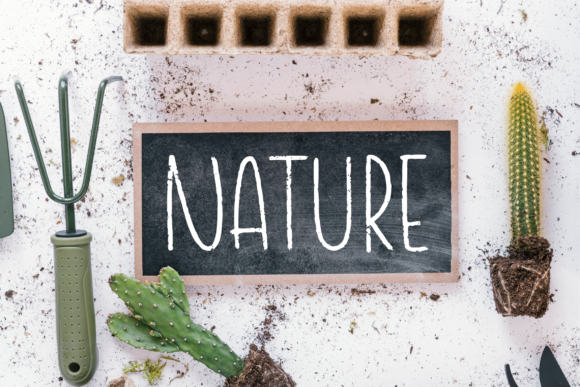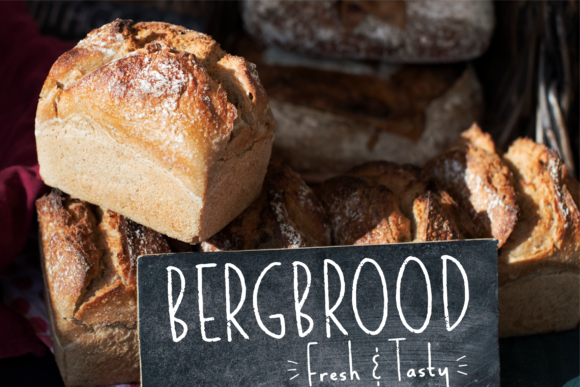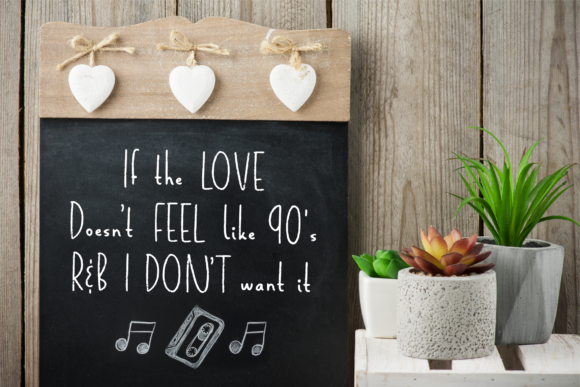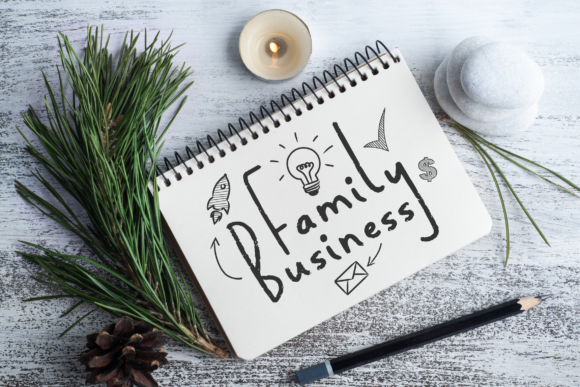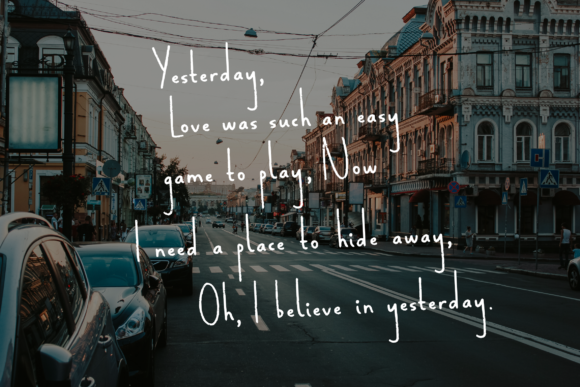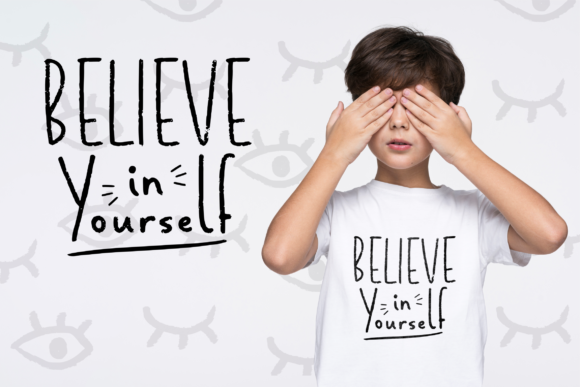
Introducing Gradechalky Font: The Cute and Delicate Script Font You Need
Are you a designer or crafter looking for a font that can add a touch of elegance and charm to your creations? Look no further than Gradechalky Font, a beautiful and delicate script font that’s perfect for a wide range of projects. In this article, we’ll take a closer look at Gradechalky Font, its features, and how it can elevate your designs.
What is Gradechalky Font?
Gradechalky Font is a cute and delicate script font that’s designed to add a touch of whimsy and charm to your creations. With its elegant and flowing lines, this font is perfect for designers and crafters who want to create beautiful and eye-catching designs. Whether you’re working on a logo, branding project, or social media graphics, Gradechalky Font is an excellent choice.
Key Features of Gradechalky Font
So, what makes Gradechalky Font so special? Here are some of its key features:
- Cute and delicate design: Gradechalky Font has a unique and charming design that’s perfect for creating beautiful and eye-catching designs.
- Script font style: This font has a elegant script font style that’s perfect for adding a touch of elegance and sophistication to your designs.
- Versatile: Gradechalky Font can be used for a wide range of projects, from logos and branding to social media graphics and more.
- Easily readable: Despite its delicate design, Gradechalky Font is easily readable, making it perfect for body text and headlines.
How to Use Gradechalky Font
Gradechalky Font is incredibly easy to use, and its versatility makes it perfect for a wide range of projects. Here are some ideas for using Gradechalky Font:
- Logos and branding: Use Gradechalky Font to create a beautiful and memorable logo for your brand.
- Social media graphics: Add a touch of elegance and charm to your social media graphics with Gradechalky Font.
- Invitations and cards: Use Gradechalky Font to create beautiful and eye-catching invitations and cards.
- Packaging design: Add a touch of whimsy and charm to your packaging design with Gradechalky Font.
Benefits of Using Gradechalky Font
So, why should you choose Gradechalky Font for your next project? Here are some benefits of using this beautiful font:
- Unique and eye-catching designs: Gradechalky Font allows you to create unique and eye-catching designs that will stand out from the crowd.
- Elegant and sophisticated look: This font adds an elegant and sophisticated look to your designs, making it perfect for high-end brands and luxury products.
- Increases brand recognition: By using Gradechalky Font, you can create a consistent brand identity that will increase brand recognition and loyalty.
- Perfect for crafty projects: Gradechalky Font is perfect for crafty projects, such as handmade cards, invitations, and DIY crafts.
Tips for Pairing Gradechalky Font with Other Fonts
Pairing Gradechalky Font with other fonts can create a beautiful and unique look. Here are some tips for pairing Gradechalky Font with other fonts:
- Pair with sans-serif fonts: Pair Gradechalky Font with sans-serif fonts, such as Arial or Helvetica, for a clean and modern look.
- Pair with serif fonts: Pair Gradechalky Font with serif fonts, such as Times New Roman or Georgia, for a more traditional and elegant look.
- Experiment with font sizes: Experiment with different font sizes to create a visually appealing combination.
In conclusion, Gradechalky Font is a beautiful and delicate script font that’s perfect for designers and crafters who want to add a touch of elegance and charm to their creations. With its versatile design and easily readable style, Gradechalky Font is perfect for a wide range of projects, from logos and branding to social media graphics and more. Whether you’re a professional designer or a DIY crafter, Gradechalky Font is an excellent addition to your font library.